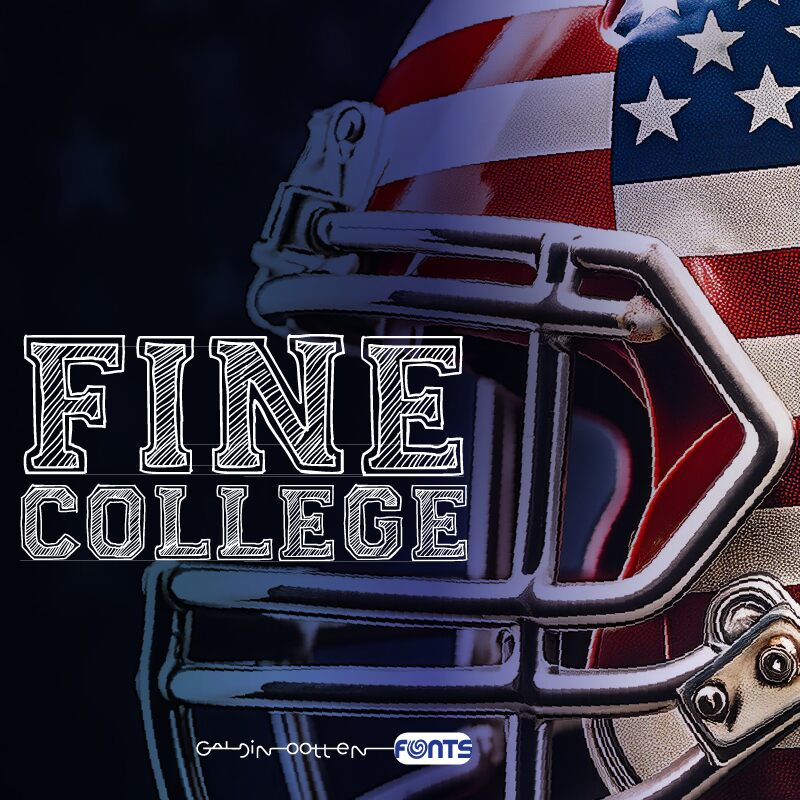
Fine College
Fine College font by Galdino Otten Fonts in an old-school display typeface with a unique sketchy look. If you’re looking for an odd geometric decorative typeface to use in graphic projects, don’t hesitate to add this lovely font to your toolbox!
Possible Fine College font uses include sports or college logos/branding, athletic event posters/tickets/invitations, t-shirt design, school notebooks and supplies branding, titles of books and novels (sci-fi), articles in magazines or newspapers, inspirational quotes on social media.